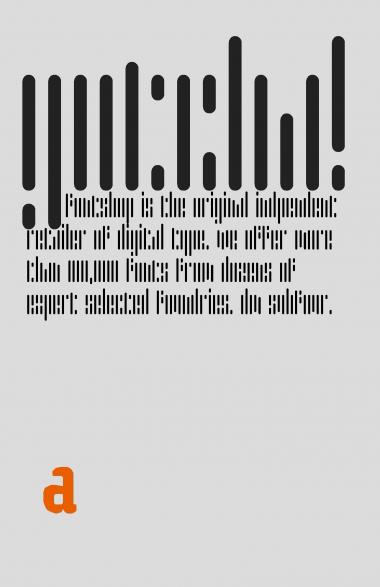
This is real minimalism, folks. I suggest pixel size for as much legibility as you can squeeze out of this one. Try large sizes for a cryptic effect.
Tell me if you want UC. This font was made with no filters and three bricks, hence the name Subfour.
Brilliant. Could it be more legible if you increased the spacing a bit?
Or "readable" rather...
I'd like to see UC
Me too.
Any more minimalist and we'd have to 'think it' rather than 'read it' :)
Cool minimalism and I like the cryptic feel... :)
Nice one, increased spacing would definitely make it more legible. Looking forward to UC!
I just wrote a long reply and lost internet, so it was all in vain. Point was, being legible isn't always best. This font wasn't built for readability. As a compromise, I'll make a more legible clone. And thanks, guys, for the great feedback. UC coming up! (the lc took about 10 minutes, so it'll be done in a few mins.)
Man, that T was tough.
Great to see UC, it works well, even the T. You're right, the other version is more legible, but this one's visual impact is much stronger. 10/10 for both!
Where has passed the LB version which was better in my opinion ?